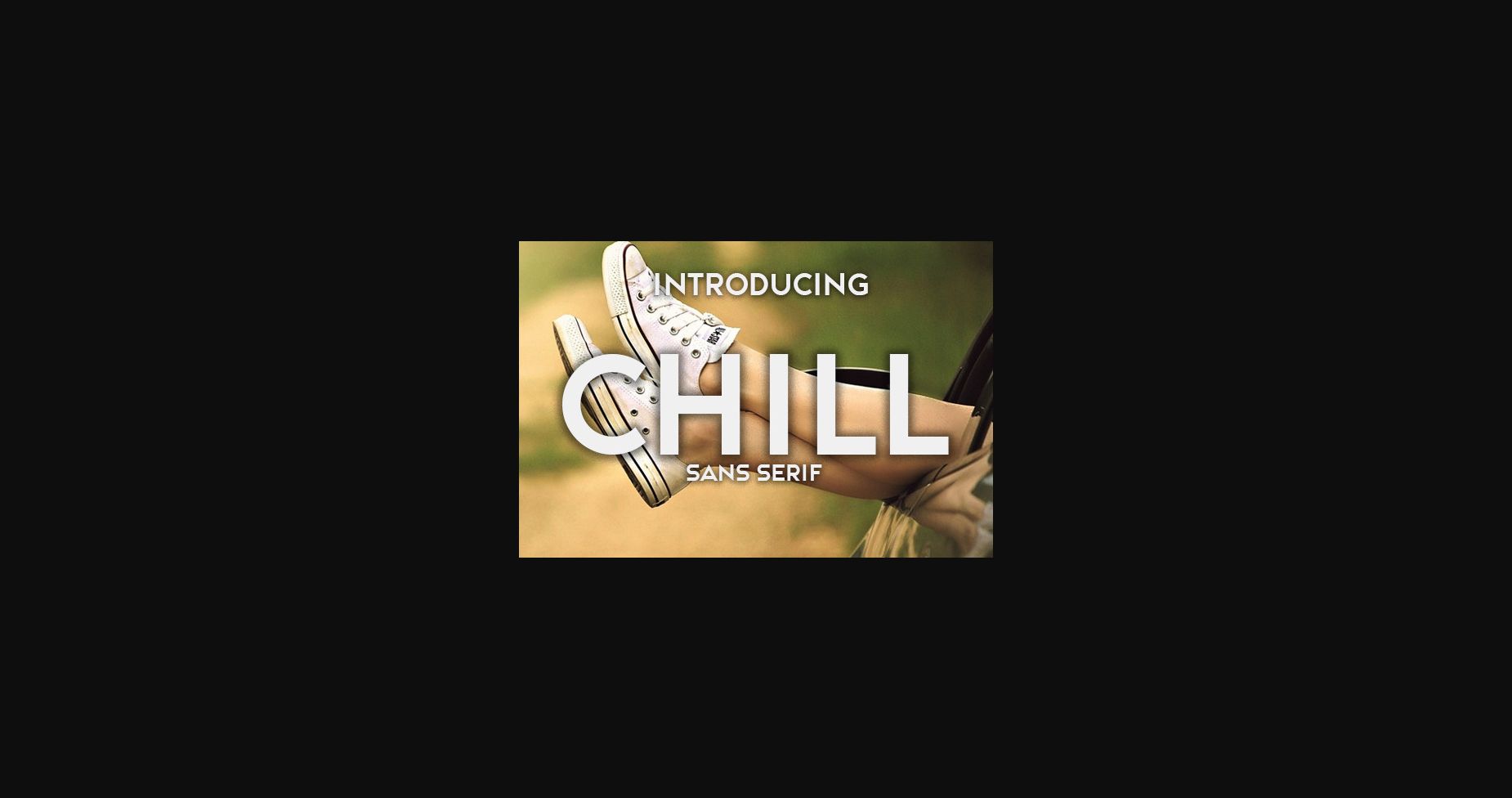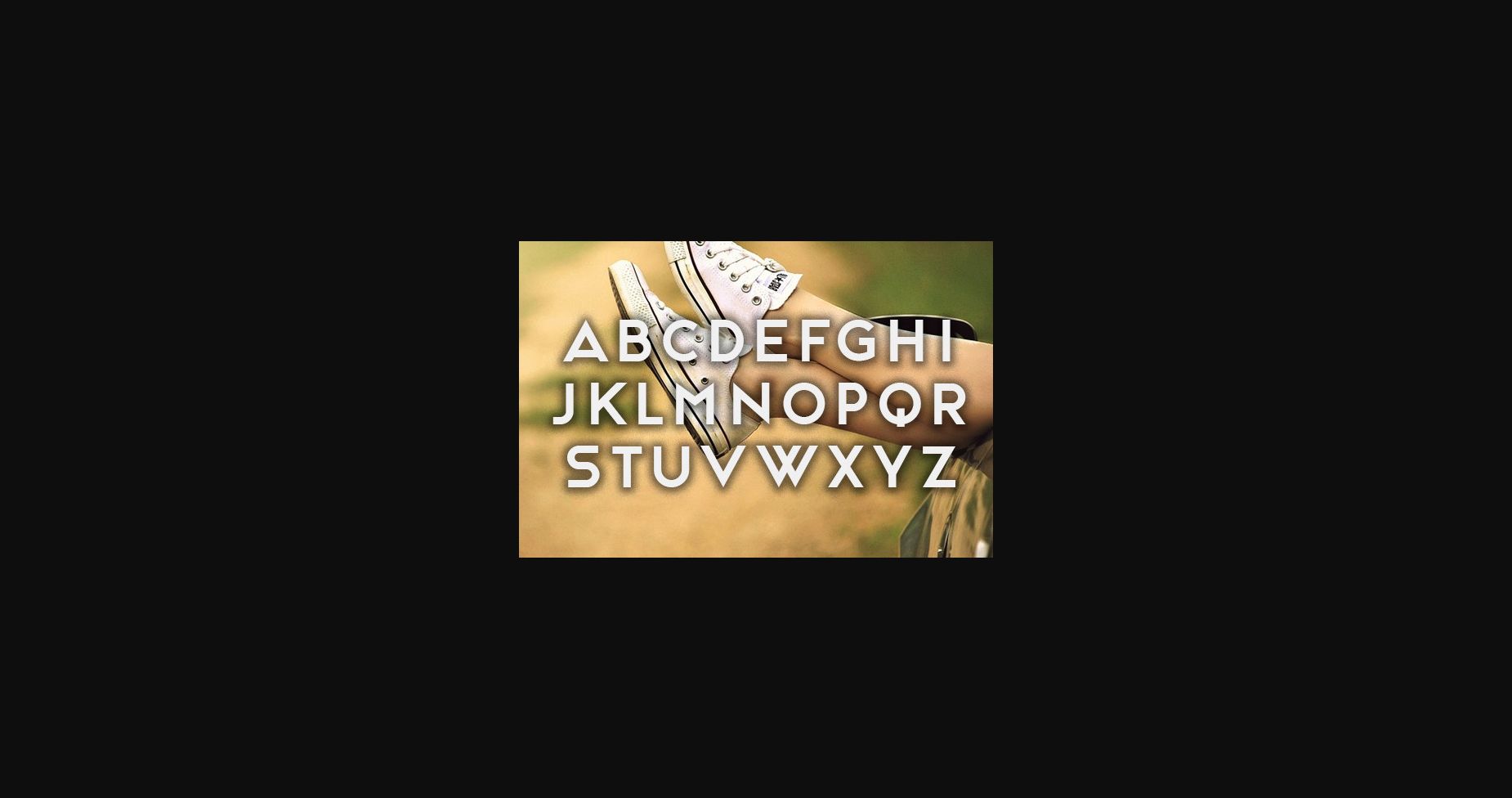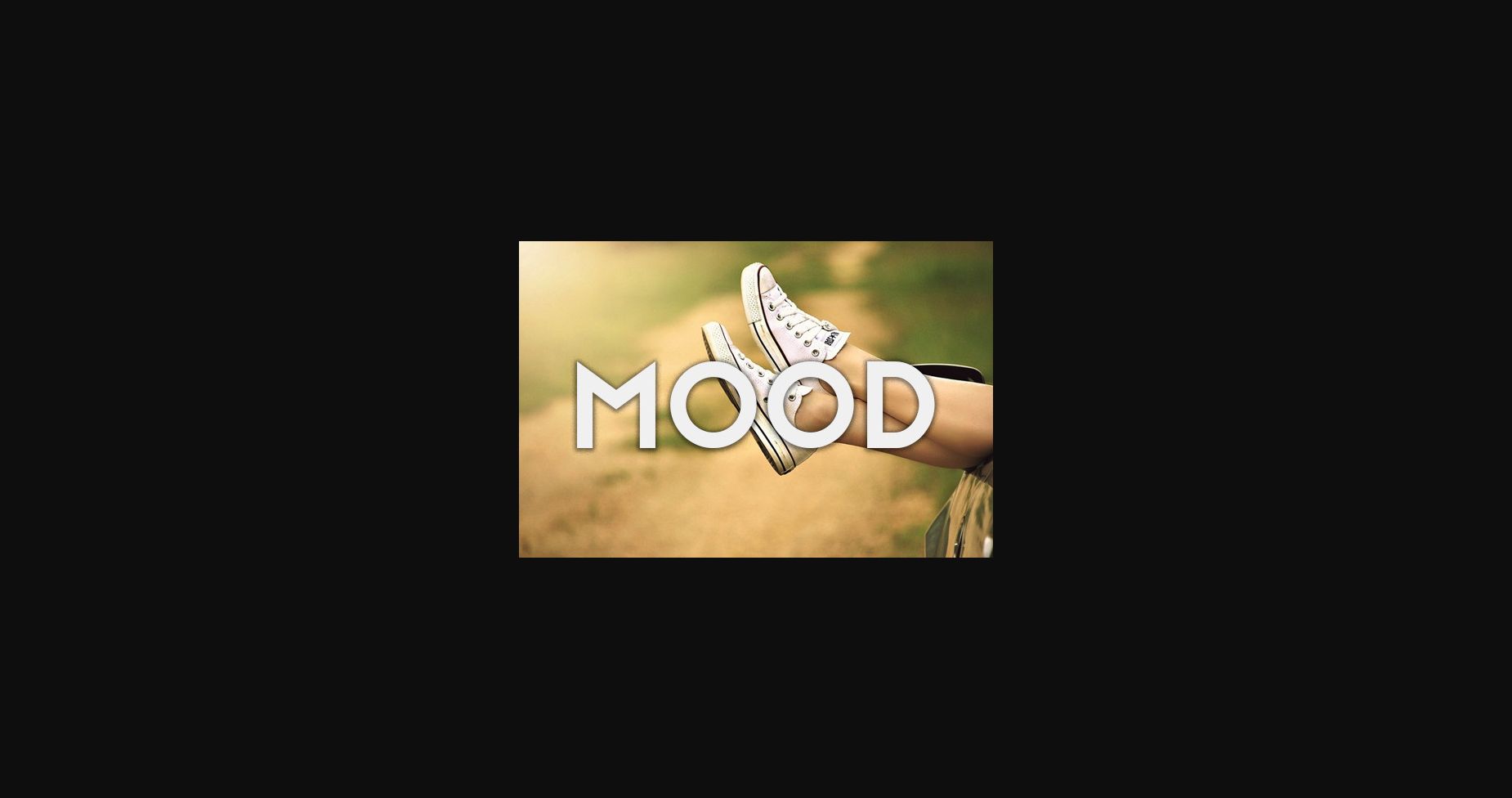
About Chill Font
Chill is an elegant sans serif font that will look amazing on any of your creative designs. Use this font on flyers, posters, and t-shirts.